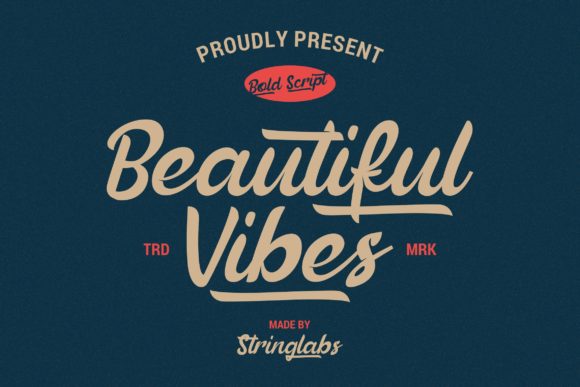
Unleash the charm of the past with Beautiful Vibes Font, a nostalgic script font that carries the essence of vintage aesthetics. StringLabs, the creative minds behind this font, have masterfully crafted each letterform to evoke a sense of longing for simpler times.
With its graceful curves and elegant swashes, Beautiful Vibes Font transports you to a bygone era, where handwritten letters and heartfelt messages held a special significance. Its retro vibe adds a touch of nostalgia to your creative projects, whether it's a personal journal, an invitation, or a captivating social media post.
The beauty of Beautiful Vibes Font lies in its versatility. Its flowing script style can effortlessly adapt to various design concepts, from whimsical wedding invitations to eye-catching logos and branding materials. It's a font that speaks to the heart, adding a personal touch to your creative endeavors.
Imagine the impact of your words when written in the enchanting characters of Beautiful Vibes Font. Its delicate strokes create a sense of intimacy, making your messages feel heartfelt and genuine. Whether you're a designer, a blogger, or simply someone who appreciates the art of beautiful typography, this font is sure to captivate your audience.
So, dive into the world of vintage charm and let your creativity soar with Beautiful Vibes Font. Its nostalgic appeal and timeless beauty will leave a lasting impression on your readers, clients, and followers, making your projects stand out from the crowd.